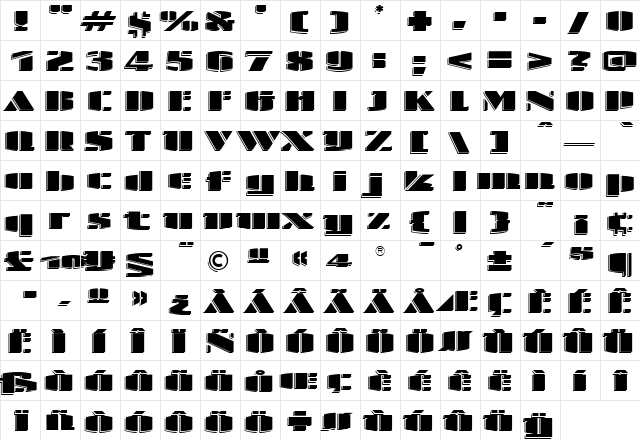
TFGuestSten Regular
| Foundry | Copr. - -,J.Treacy,Treacyfaces,Inc |
| Year | 1986 |
Design Context for TFGuestSten Typeface
TFGuestSten is a composed and adaptable typeface that performs quietly and consistently across a wide range of design contexts.